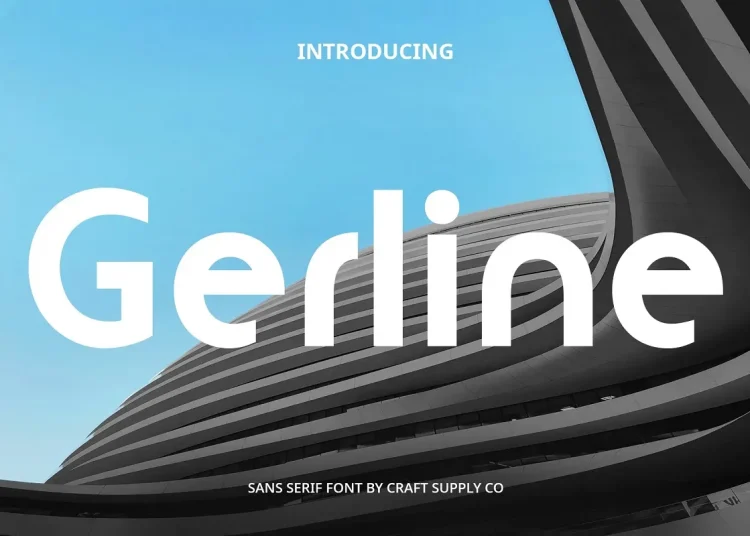
Gerline Font
Introducing Gerline – a sophisticated sans serif typeface meticulously crafted for the discerning professional. Its crisp lines and clean aesthetic render it perfect for the demanding landscape of business communication. Whether gracing the pages of a corporate report or commanding attention on a website, Gerline effortlessly blends elegance with functionality.
Versatility is the hallmark of Gerline Font, seamlessly transitioning from bold headlines to legible body text with finesse. Its contemporary design lends a touch of modernity to any project, enhancing branding efforts and ensuring a cohesive visual identity across various mediums.
One of Gerline Font’s standout features is its unparalleled readability, ensuring that your message resonates clearly, even when scaled down for print or digital media. Whether adorning a business card, website interface, or presentation slide, Gerline Font’s timeless appeal guarantees a polished and professional finish.